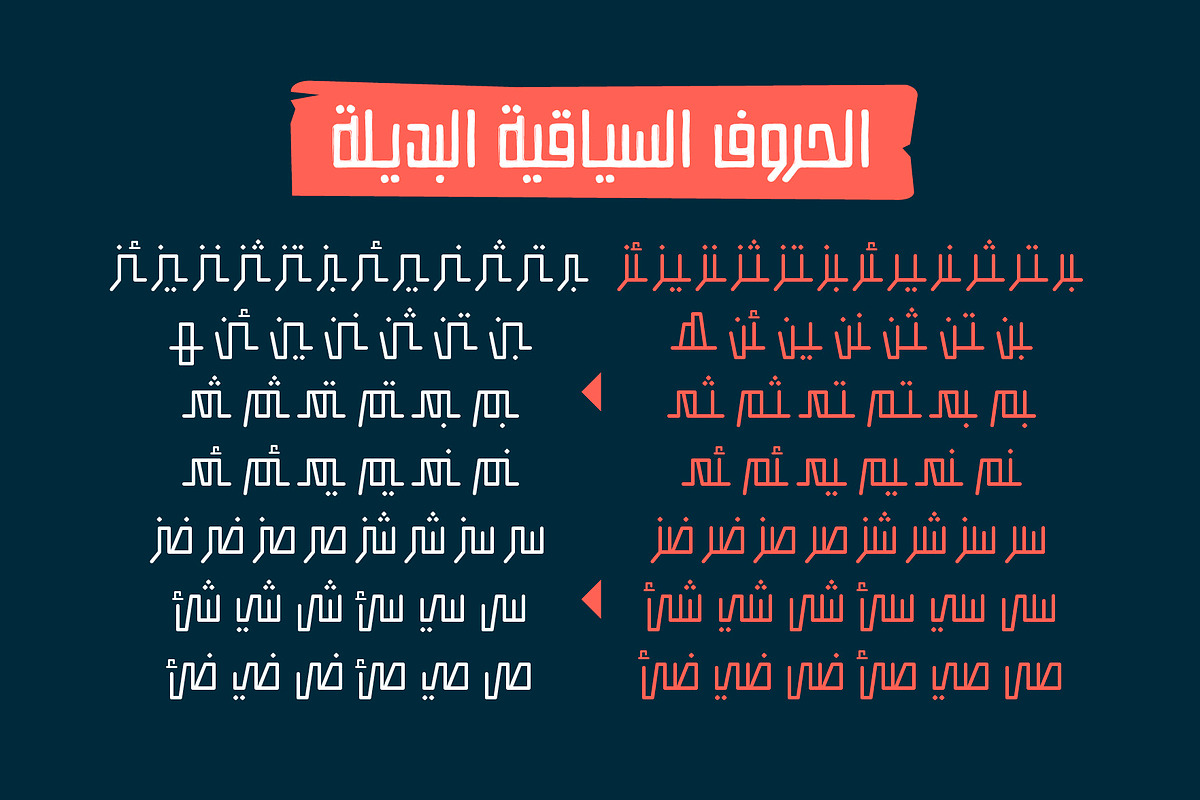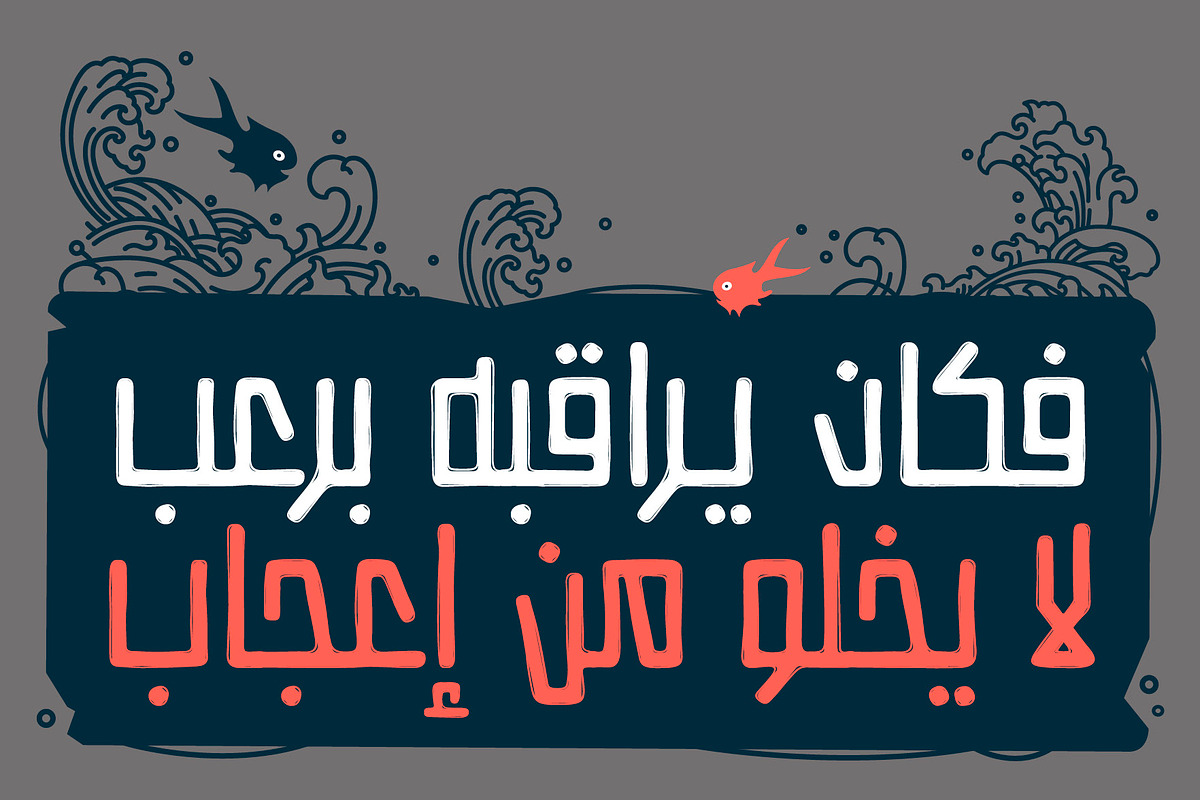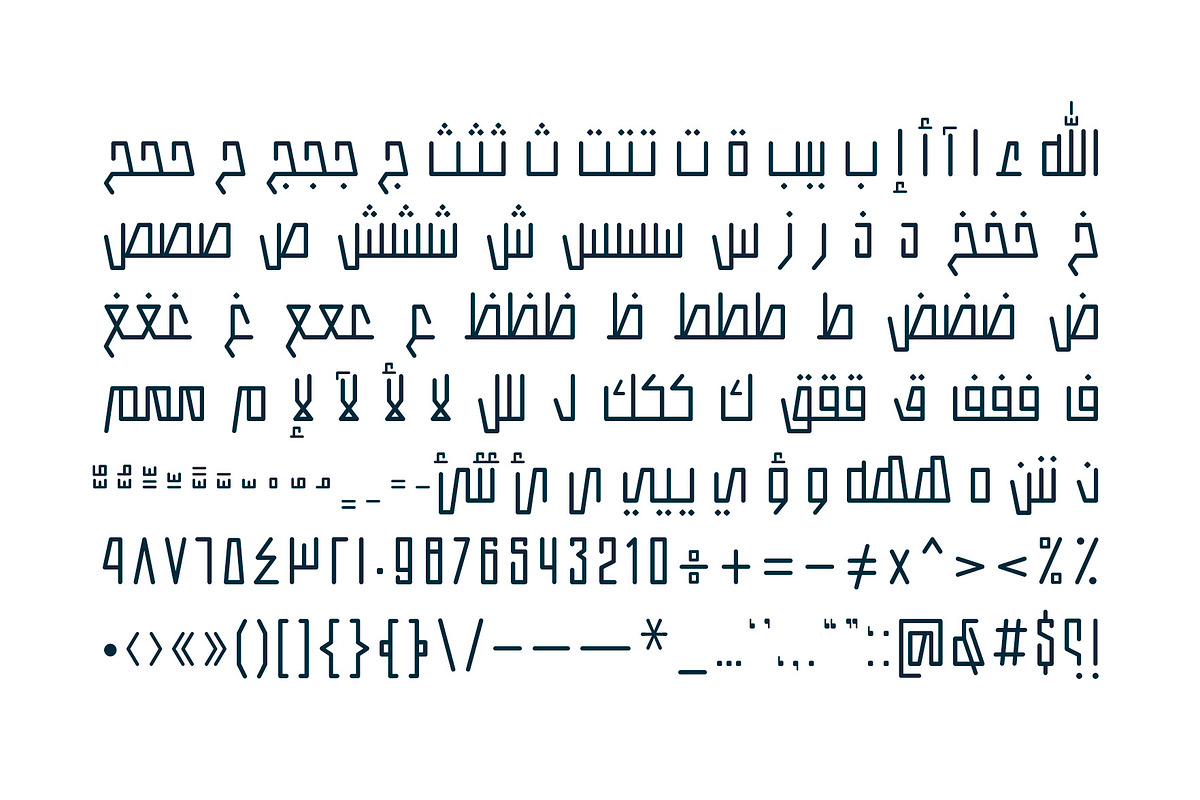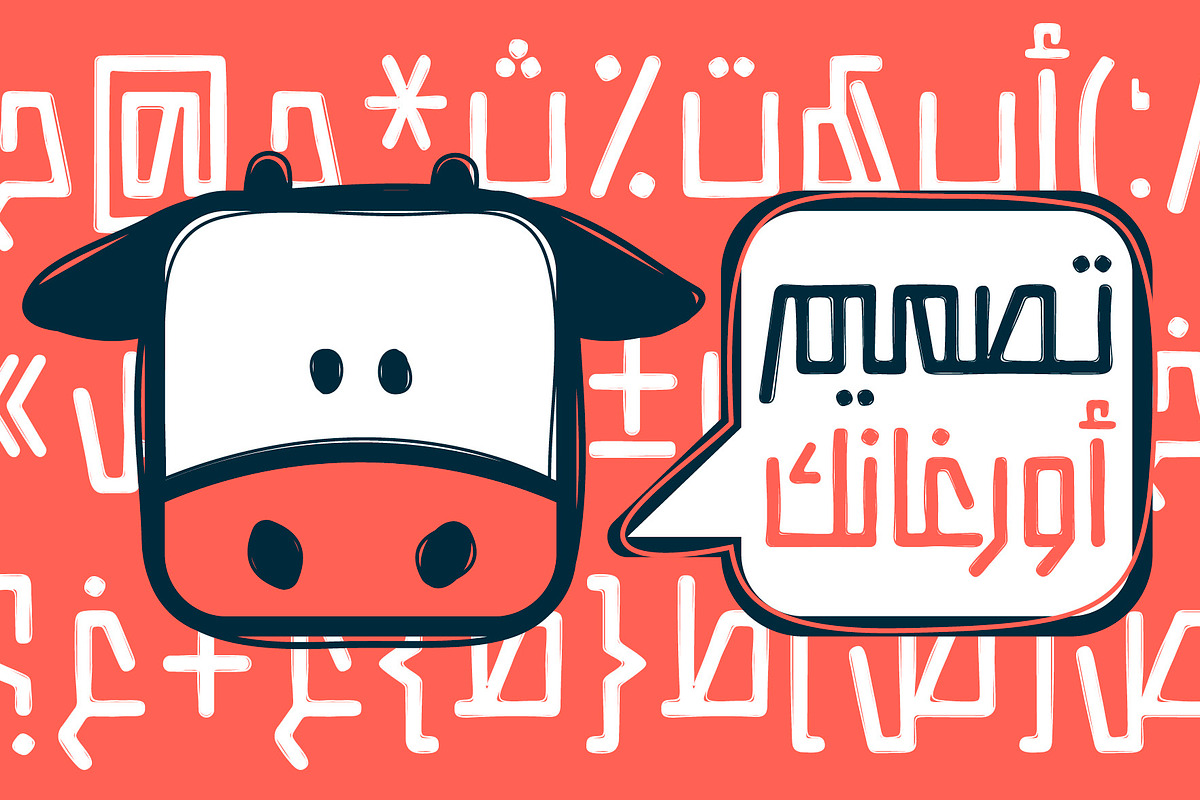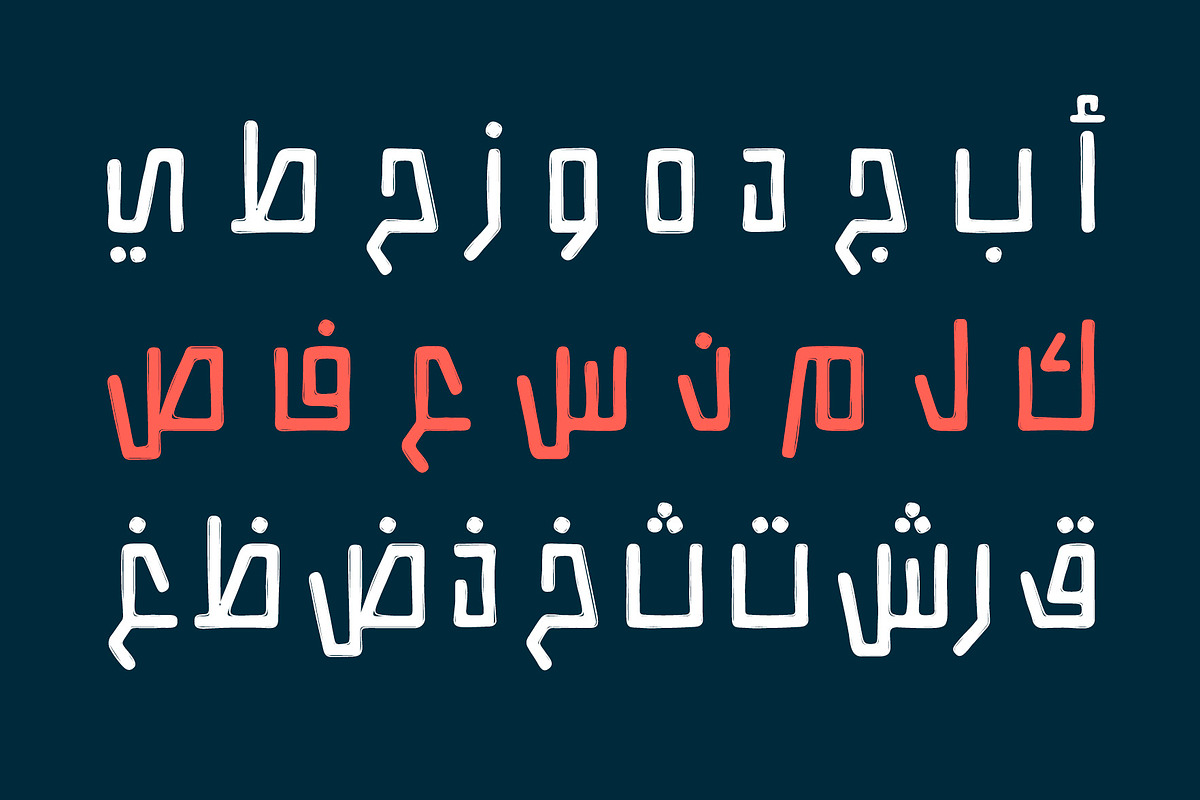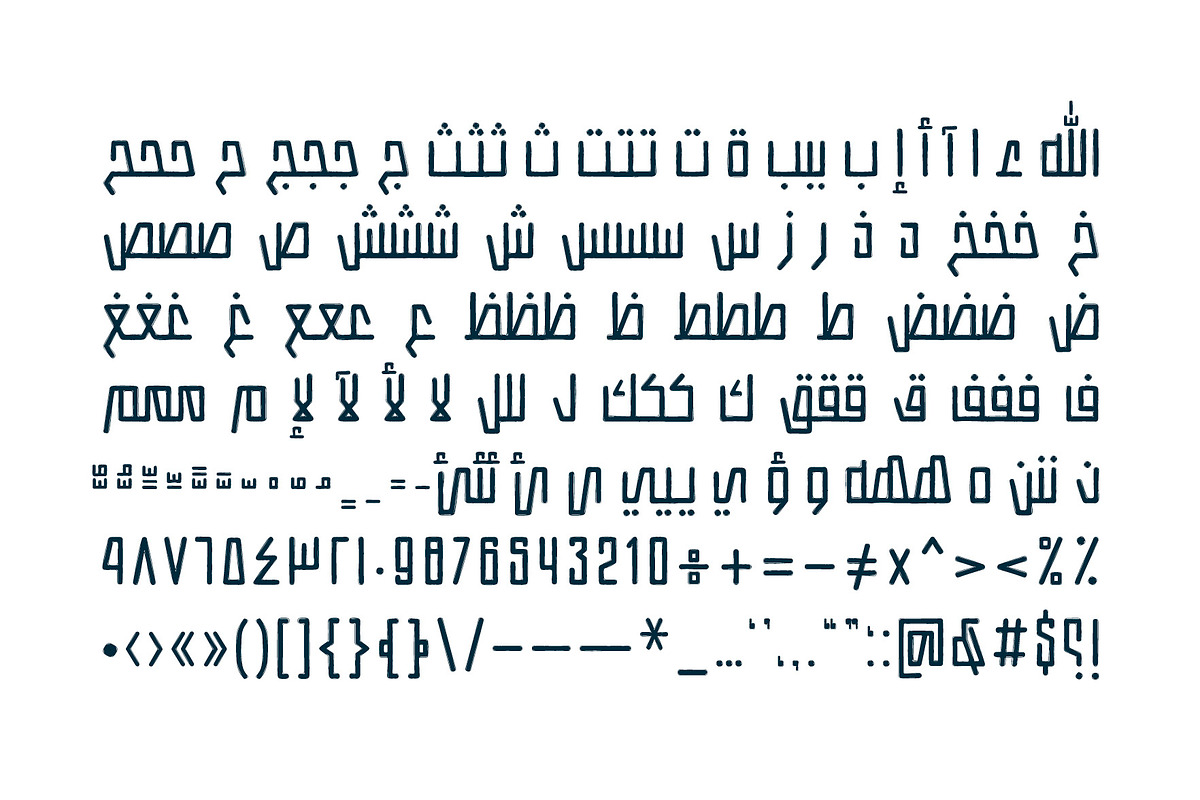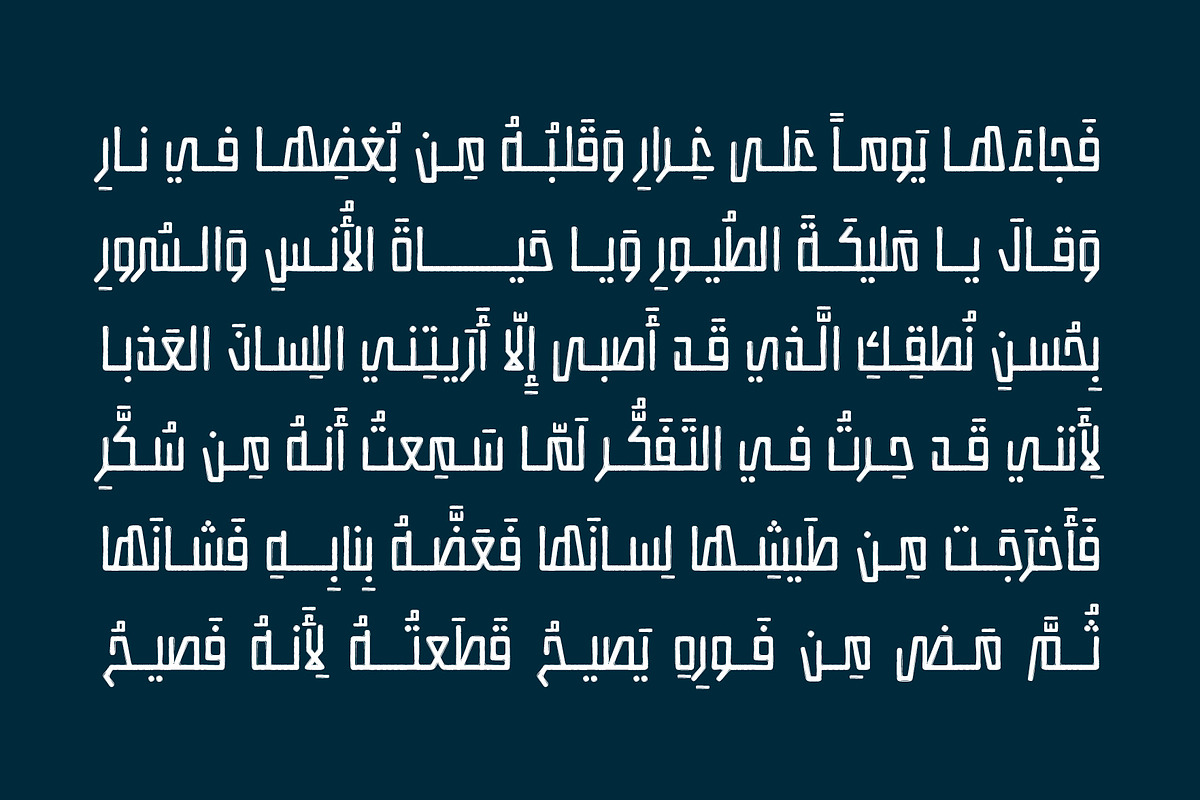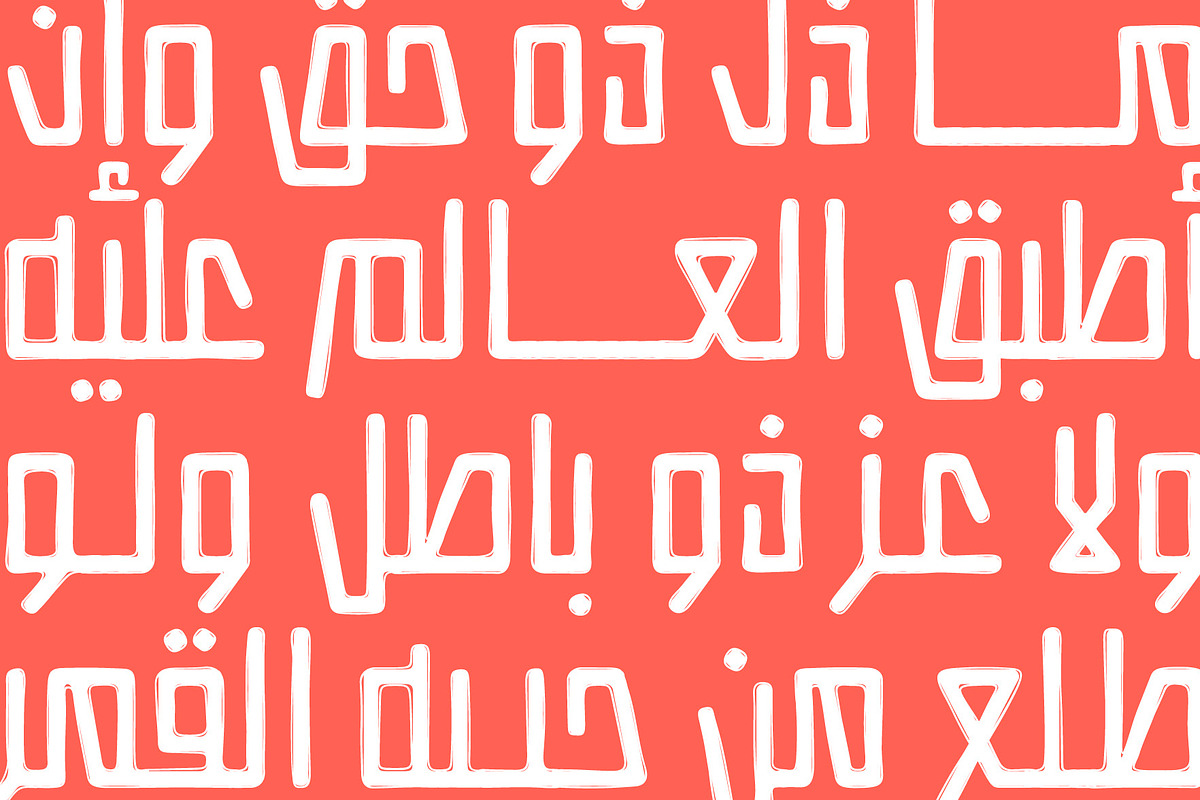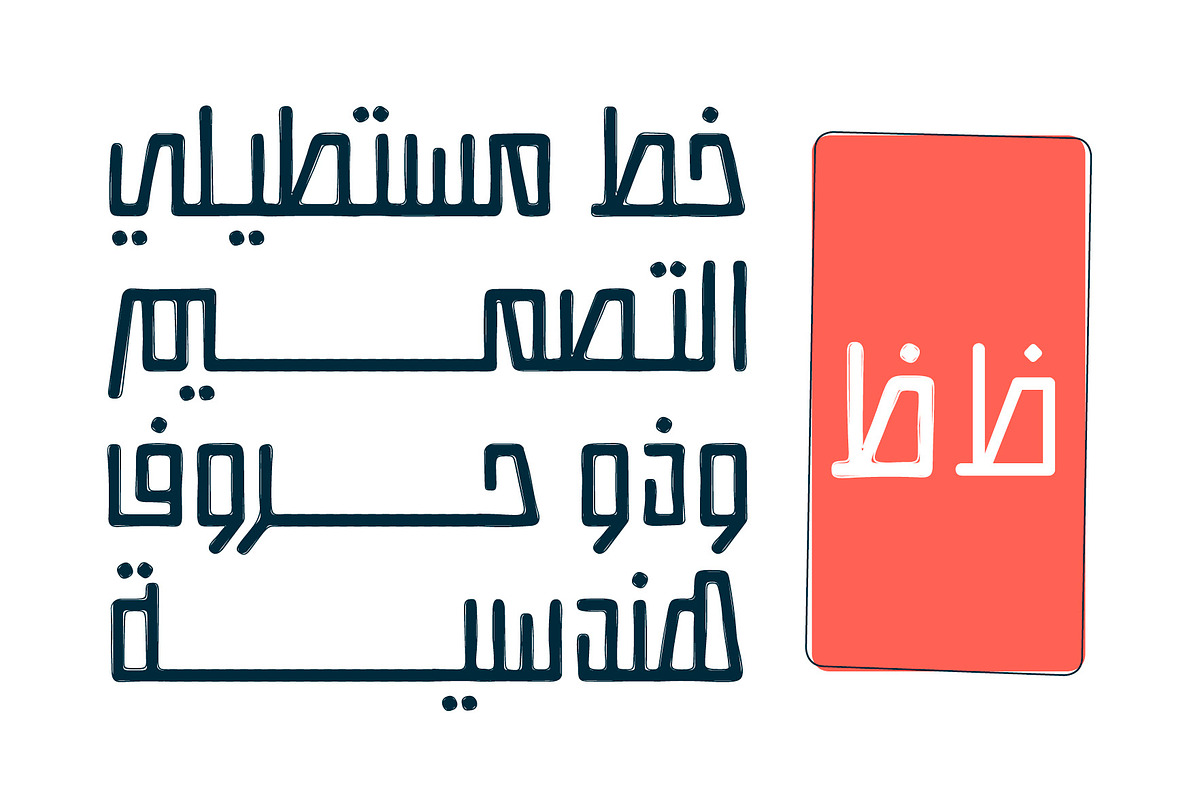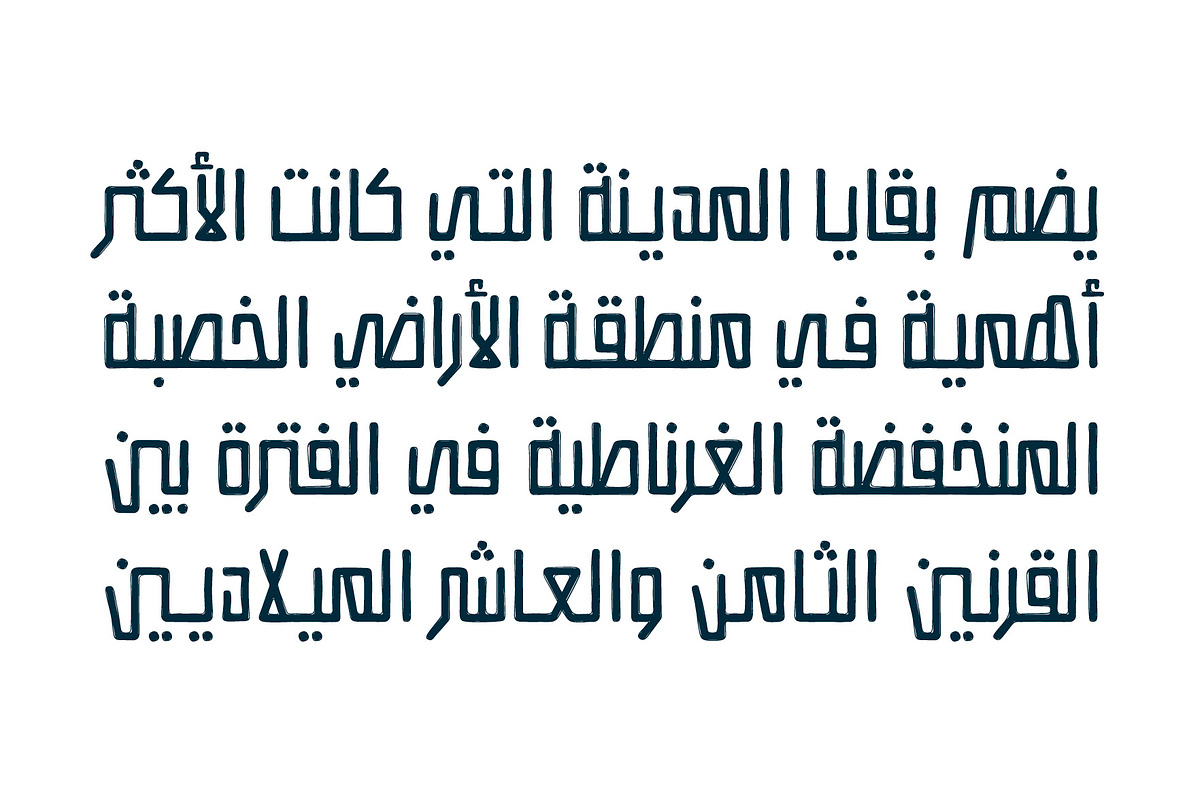
Istitalah - Arabic Font
Istitalah (Arabic for Elongation) is an Arabic display font that showcases a distinctive rectangular letterform design. Its vertical, rigid, boxy structure, combined with a scribbled texture, makes it ideal for use in modern editorial layouts, posters, tech branding, and web or mobile applications. Istitalah comes in two styles: Basic and Scribbled, and is compatible with both Windows and macOS.